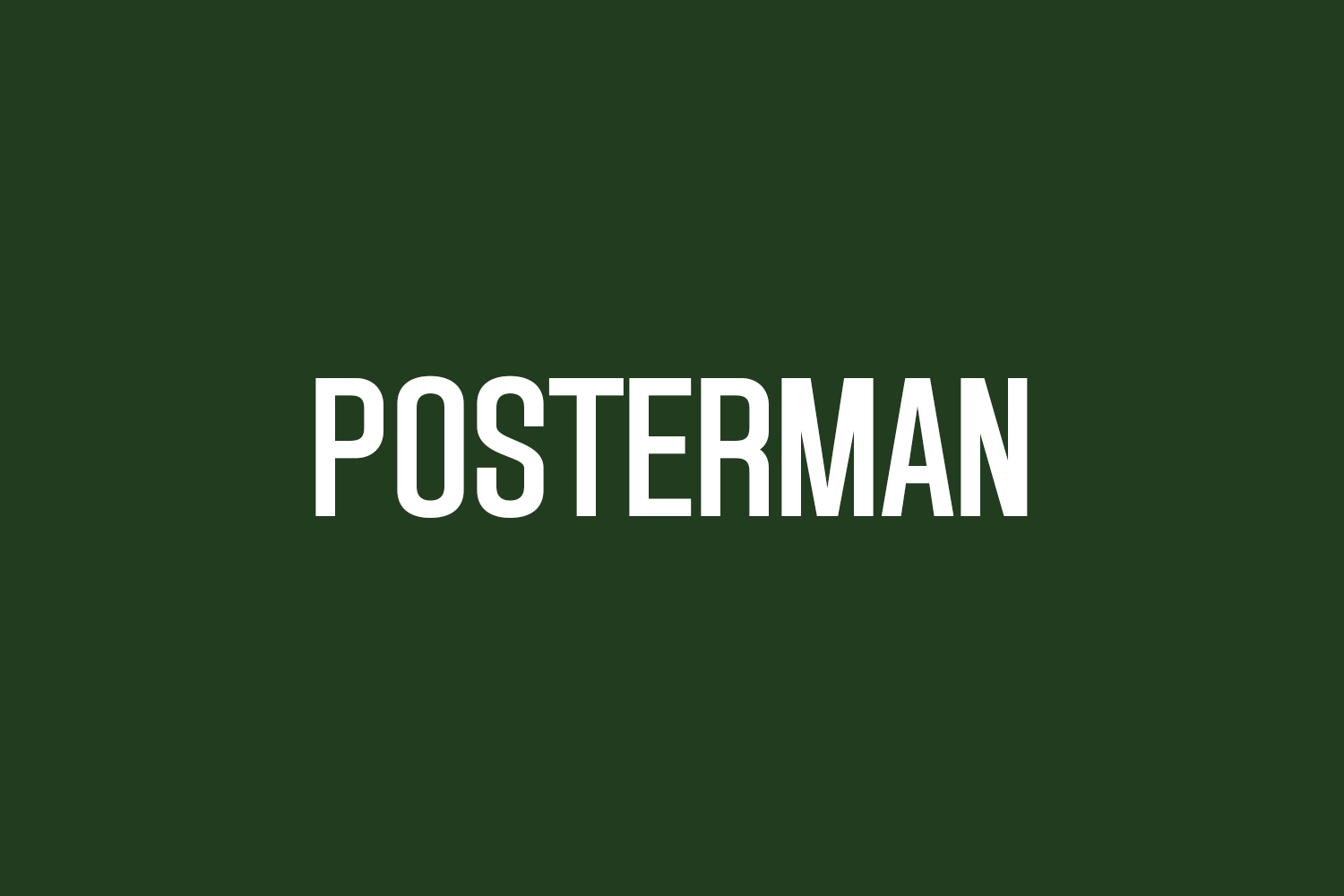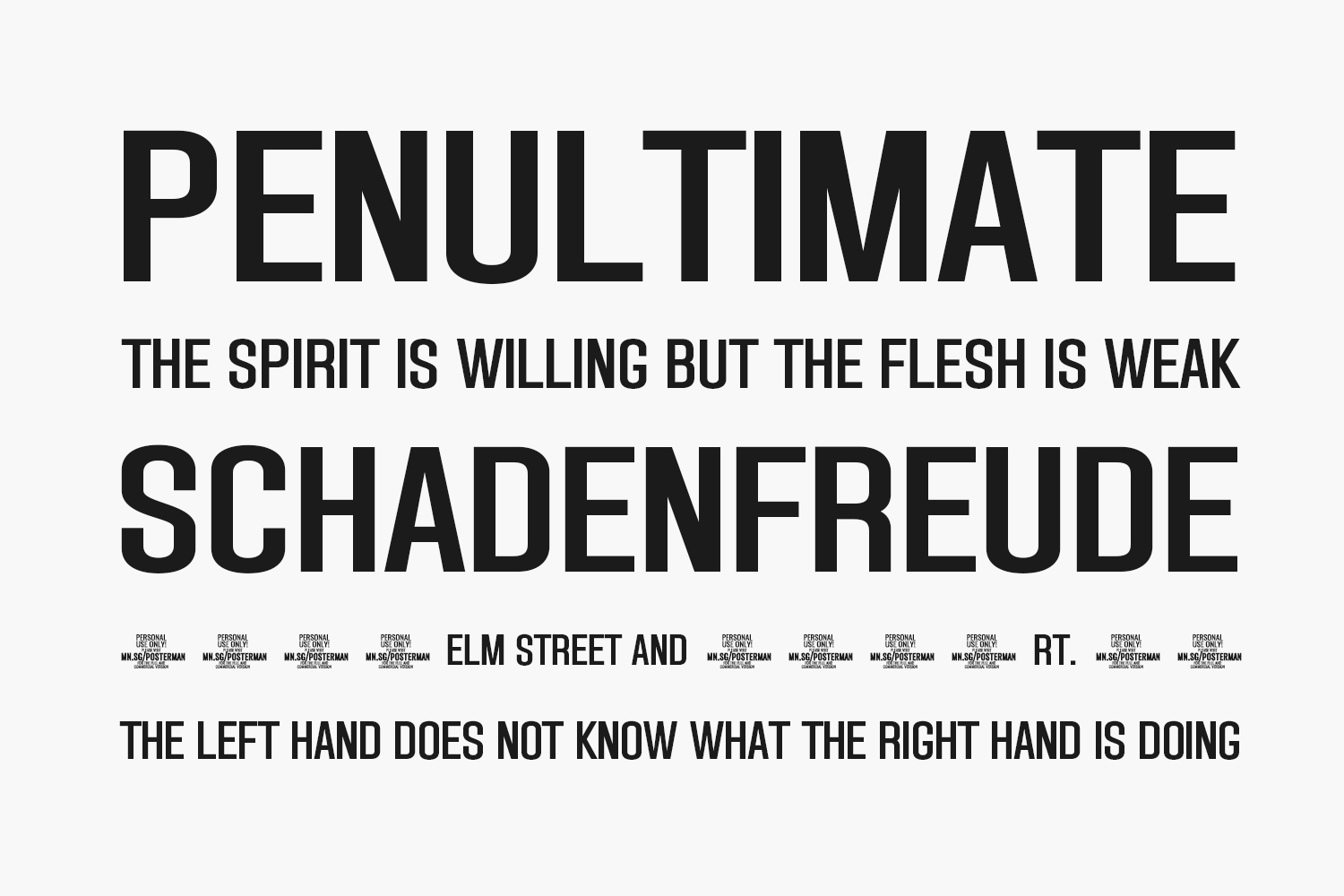
Posterman Free Font is a bold and modern sans serif typeface that commands attention. With its clean lines and crisp letterforms, this font is the perfect choice for any design project that needs a touch of sophistication and style. Whether you’re creating a poster, a website, or a marketing campaign, Posterman will help you make a statement that’s both memorable and impactful. Its versatility makes it suitable for a wide range of applications, from high-end fashion to cutting-edge technology. So if you want to add a touch of class and elegance to your next project, be sure to give Posterman Free Font a try!